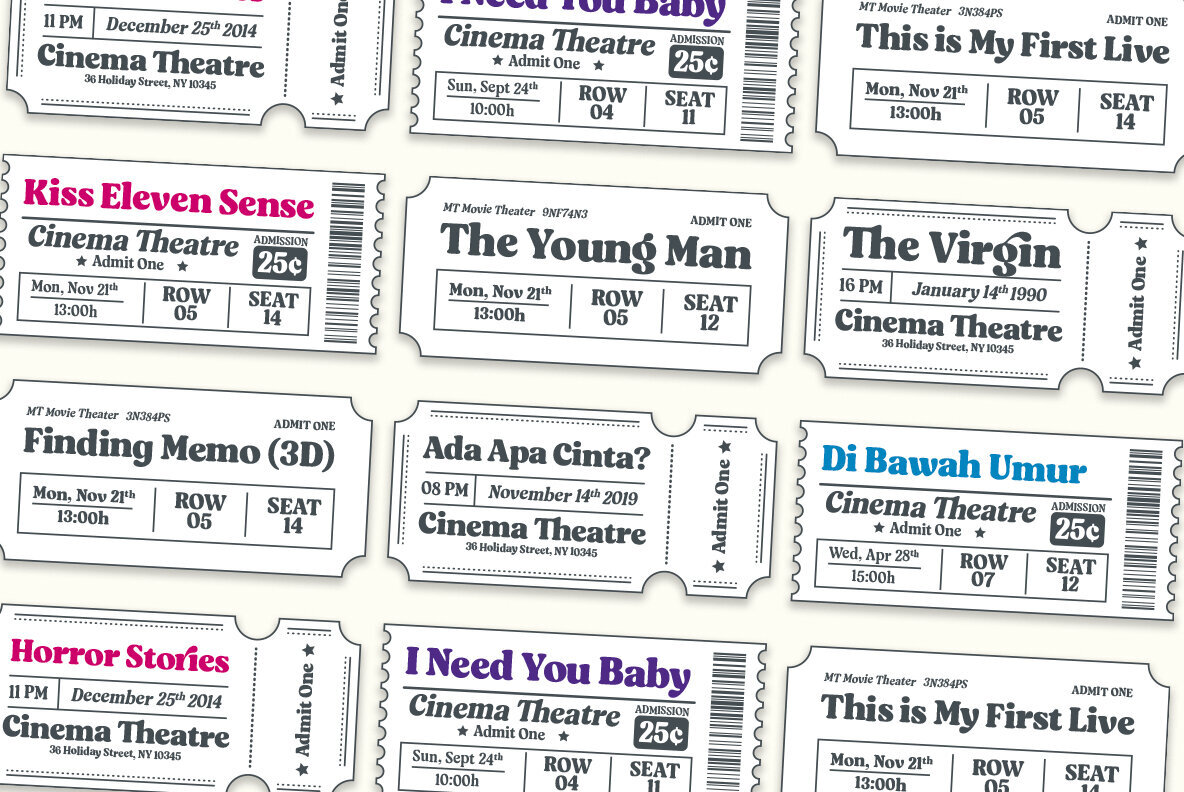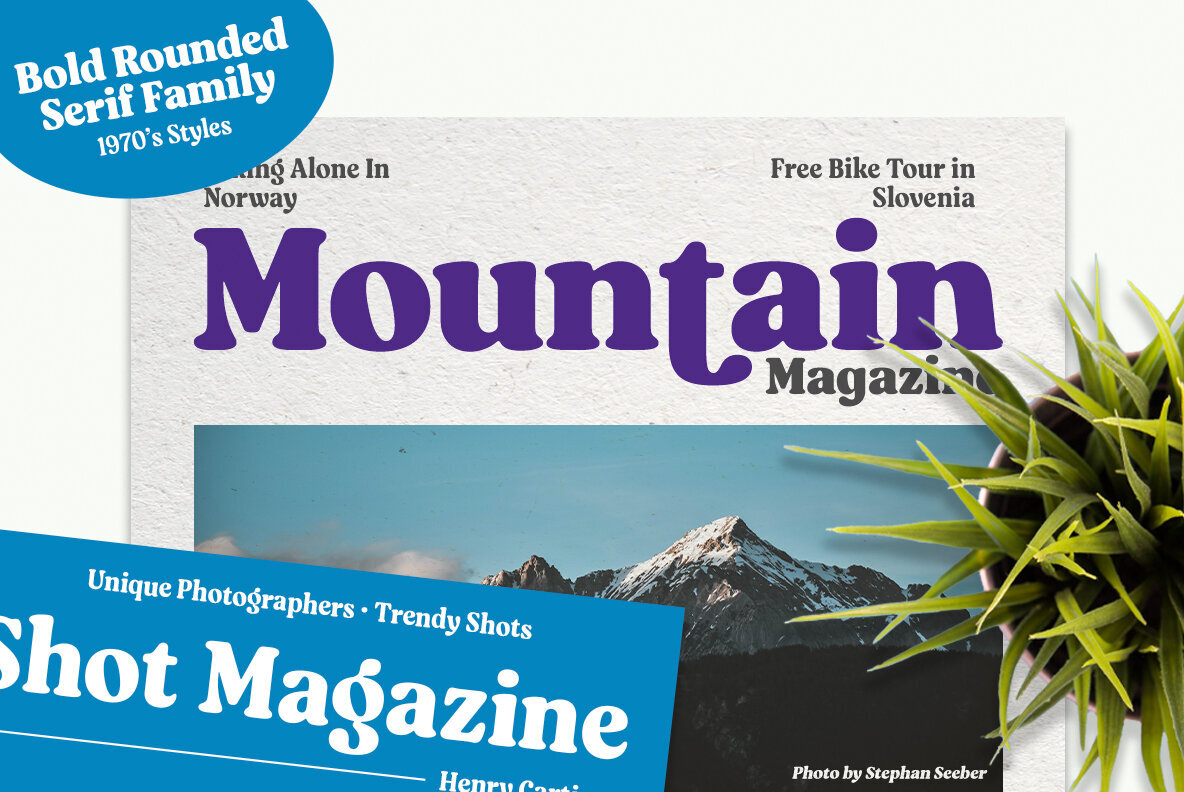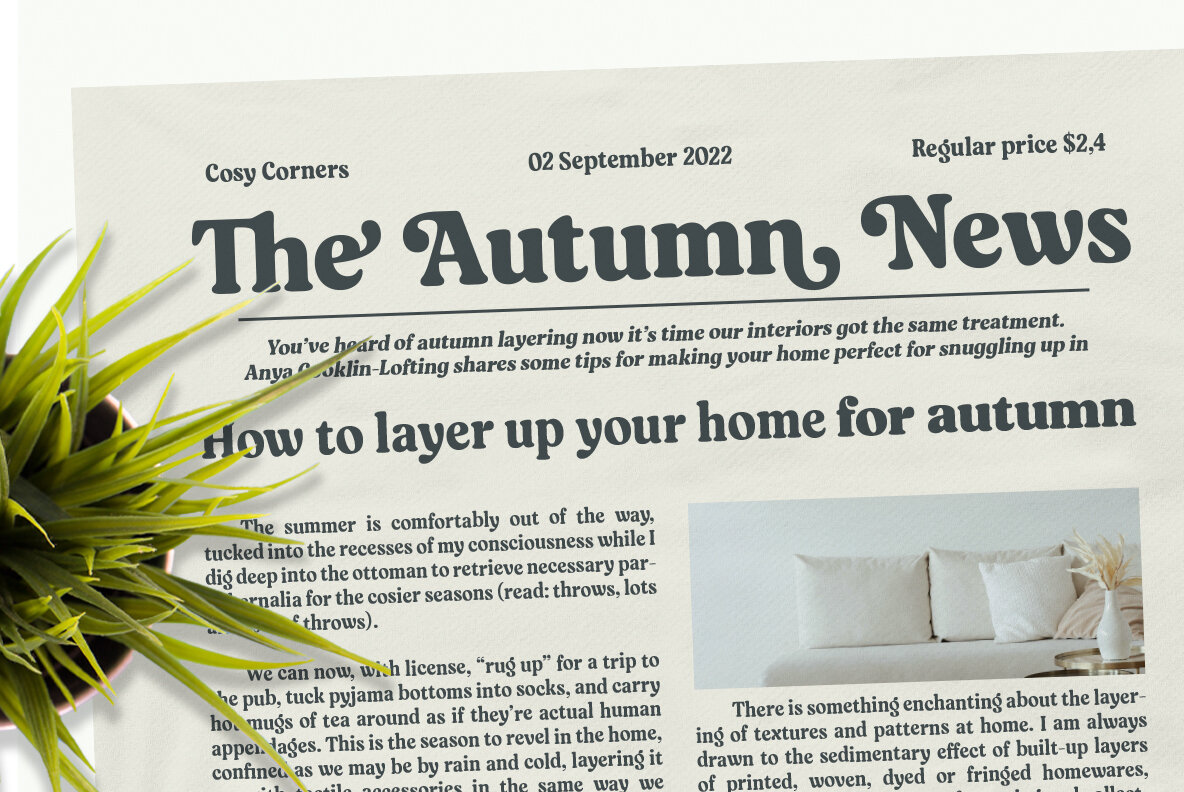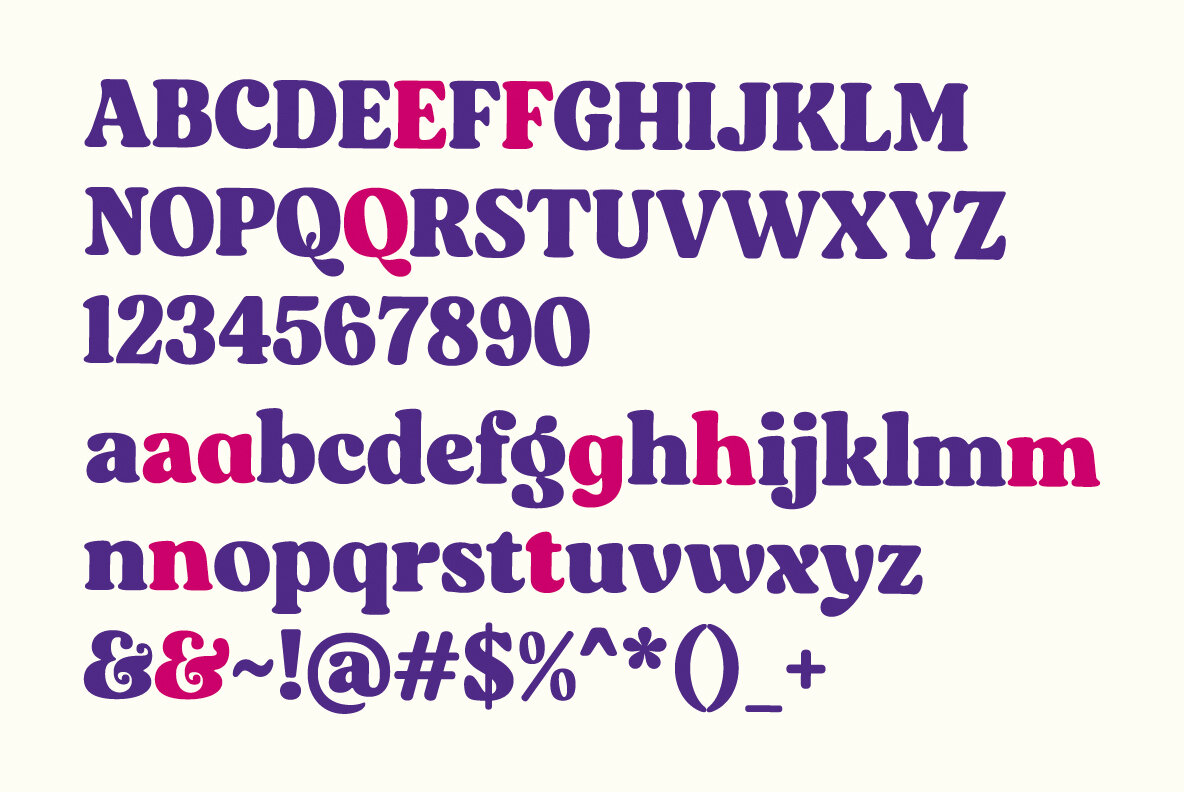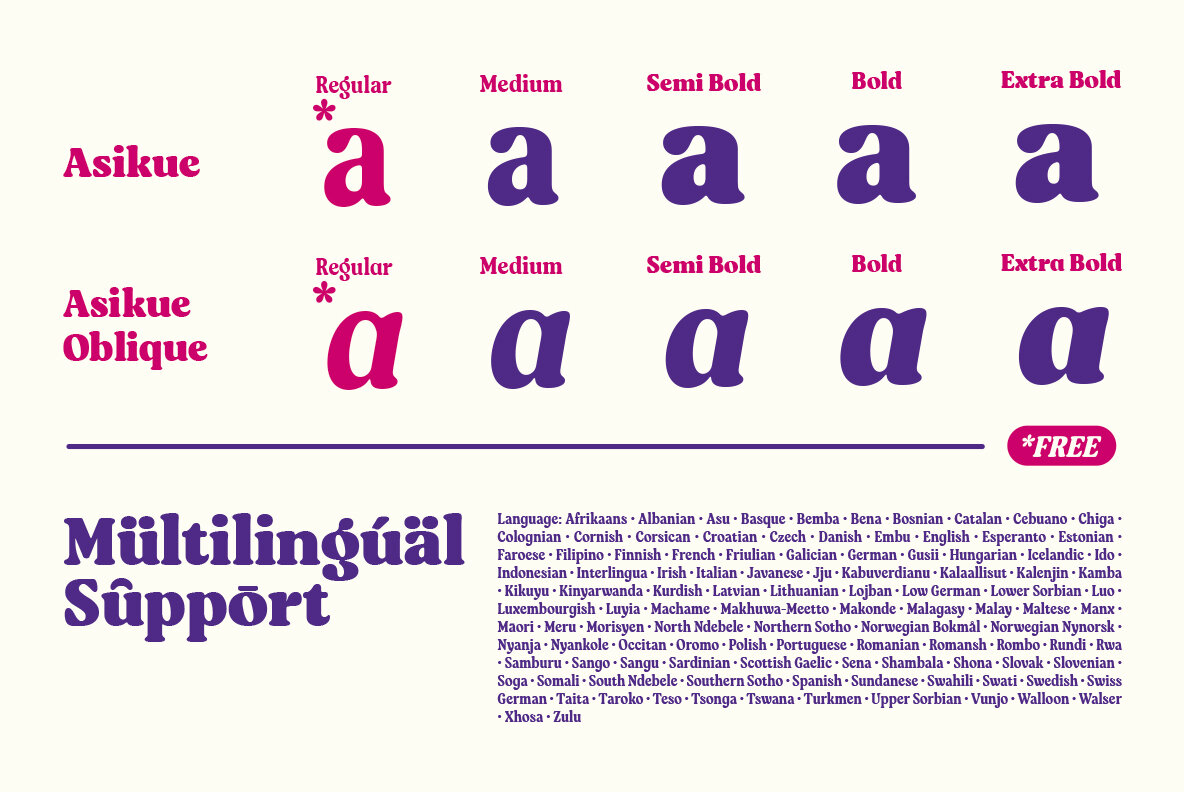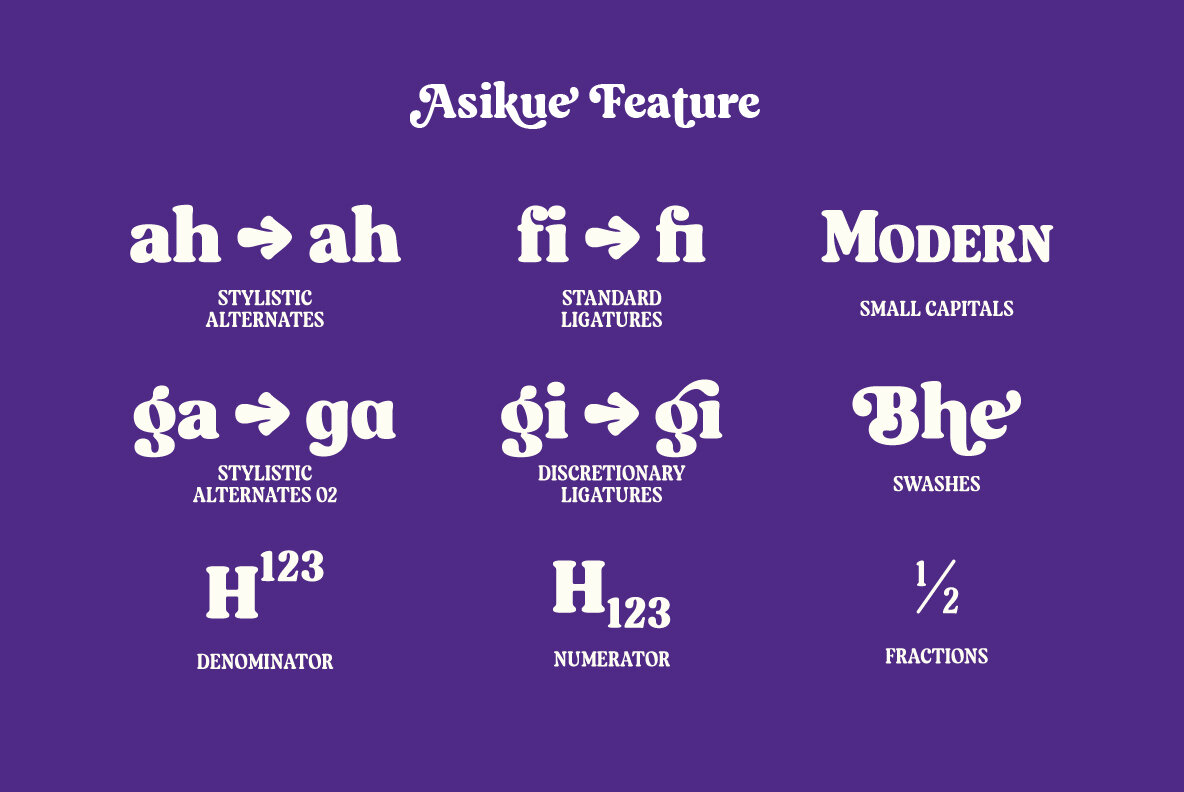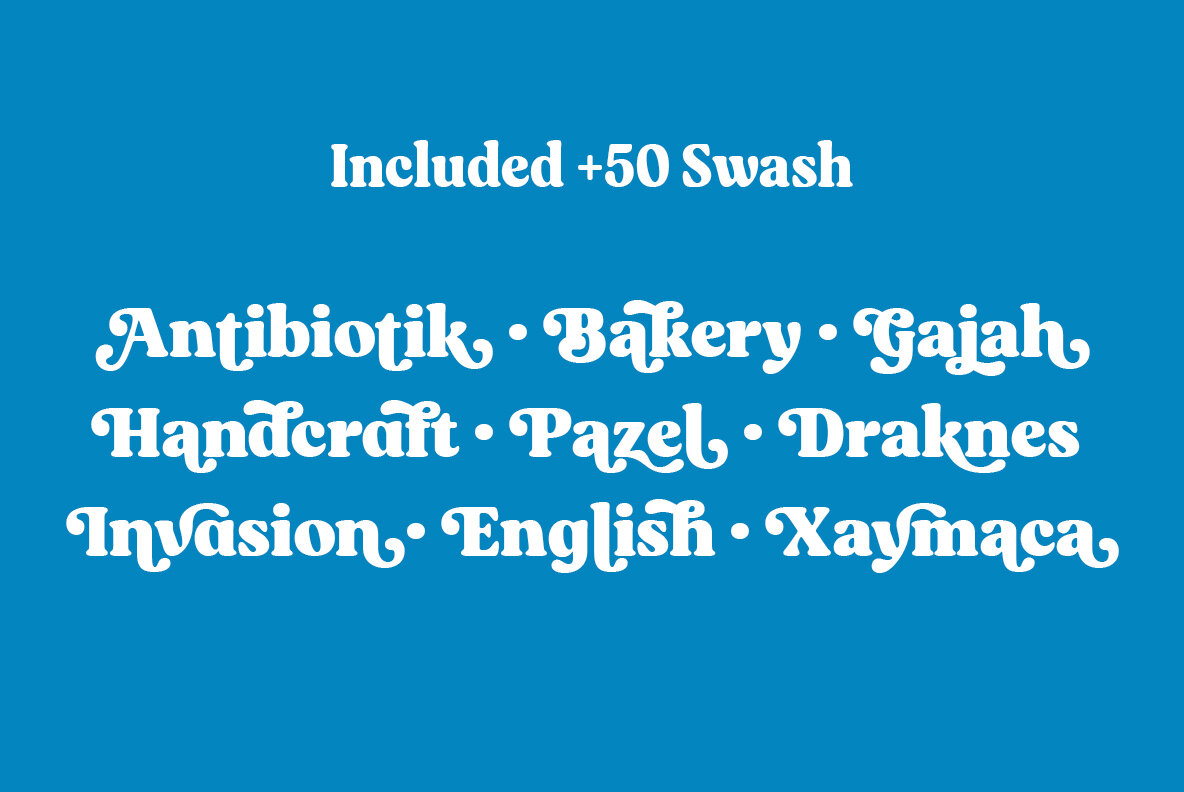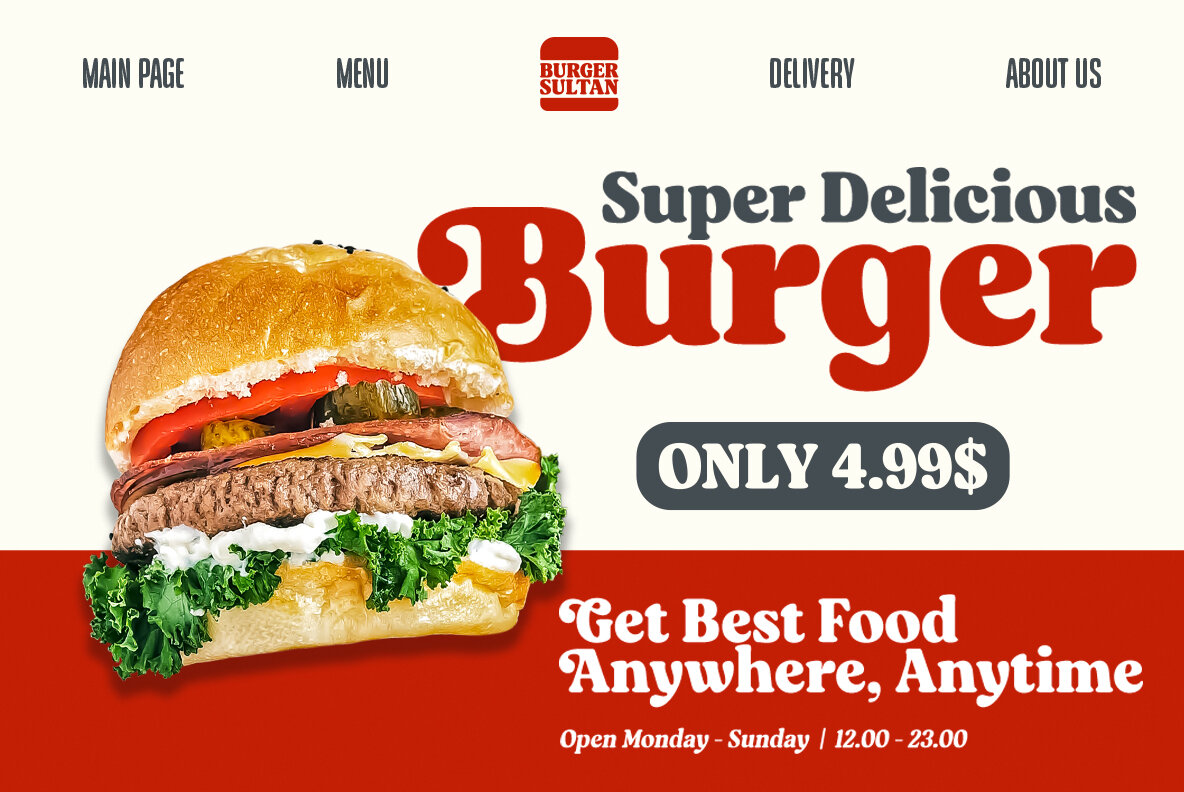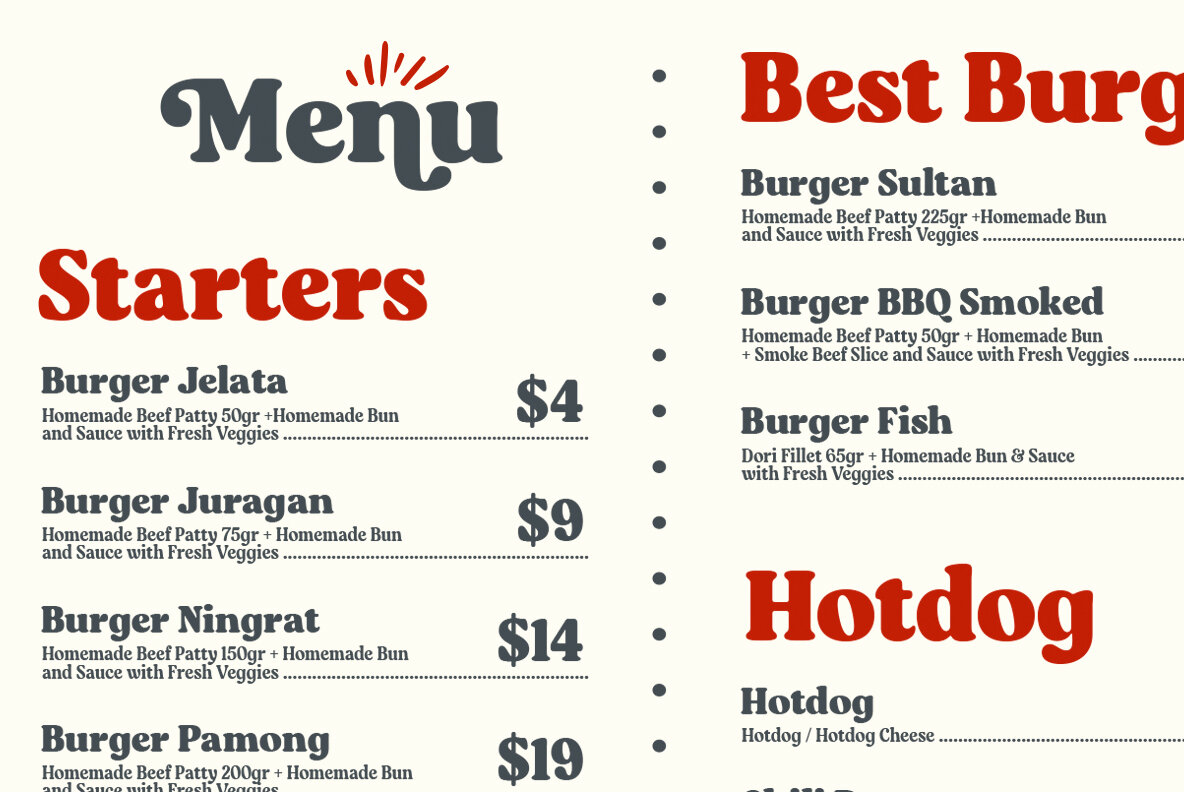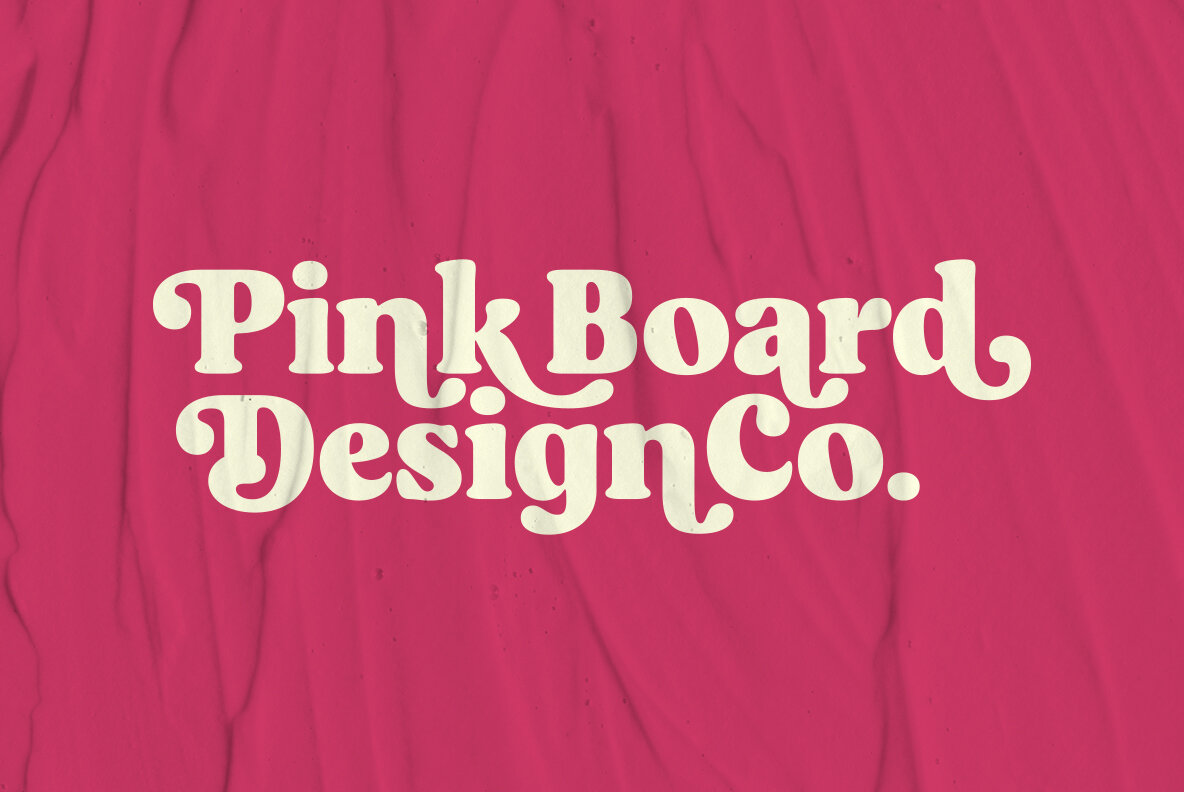
Asikue Font
The 70's are back in style with this chunky, retro font! Asikue is perfect for bringing that vintage feel to your modern projects. With 10 styles from regular-weighted letters right through the bold ones there’s something here just right no matter what kind of text you're looking at making sure it has an interesting arrangement indeed - ligatures and all sorts can be combined effortlessly so get creative today!.
Asikue includes Asikue have Opentype features: Alternate, Ligature, Swashes, etc providing you with a variety of captivating custom text arrangements. Whether it's a fancy retro-inspired, logo, or engaging bold header text Asikue is able to deliver.